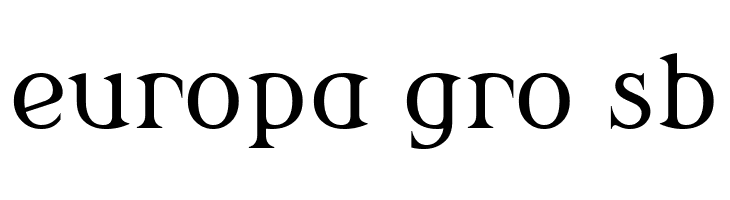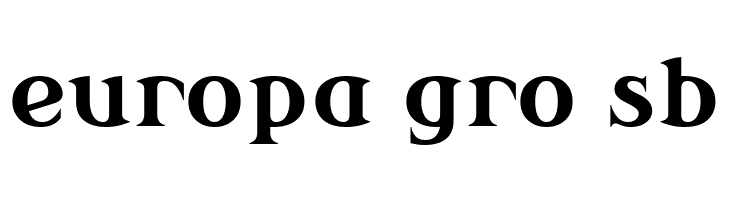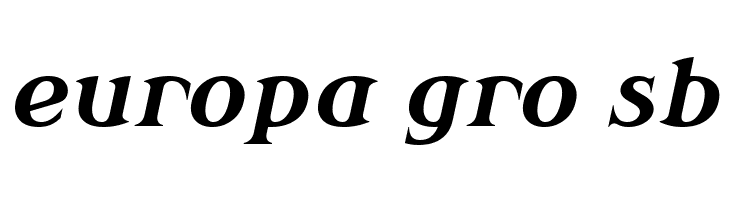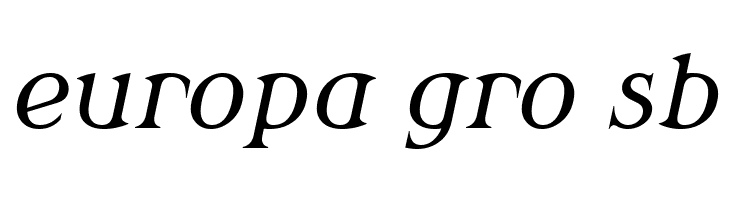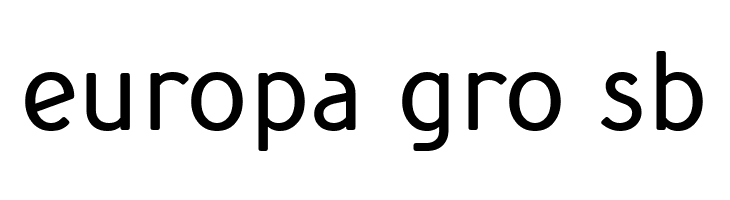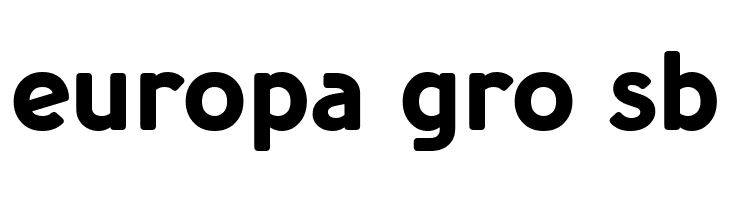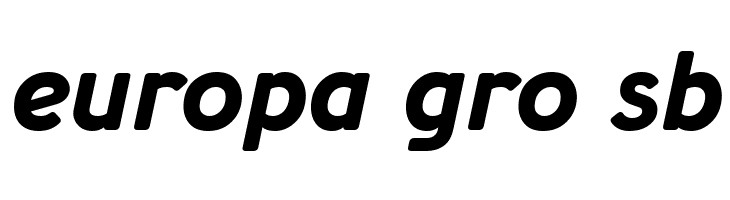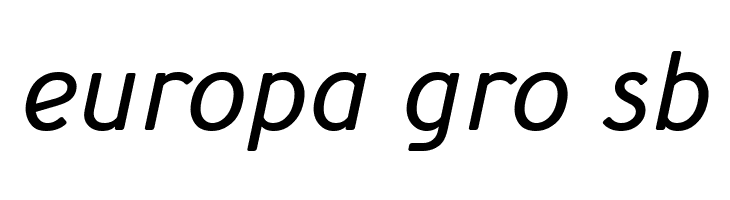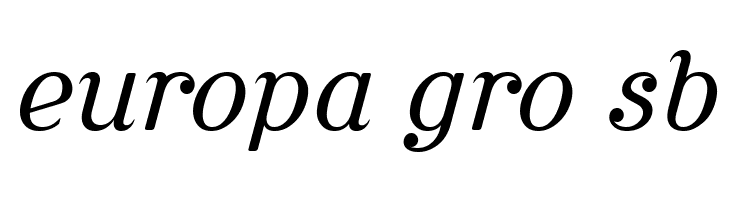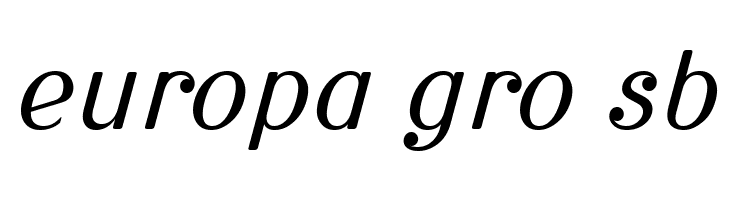
Simply Mono Book Oblique Font
Font by Wojciech Kalinowski
A modern, monospaced font with an oblique slant and consistent stroke weight.
Simply Mono Book Font
Font by Wojciech Kalinowski
A clean, monospaced font with uniform spacing and modern design.
Simply Mono Bold Oblique Font
Font by Wojciech Kalinowski
A bold, oblique monospaced font with a modern and dynamic style.
Consola Mono Book Font
Font by Wojciech Kalinowski
A clean, monospaced font perfect for coding and technical documents.
Simply Mono Bold Font
Font by Wojciech Kalinowski
A bold, monospaced font with rounded, uniform characters.
Simply Sans Bold Font
A bold, modern sans-serif font with rounded edges and uniform stroke weight.
Medieval Sharp Font
A sharp, angular font with a medieval-inspired design.
Cursive Serif Book Font
A sophisticated cursive serif font with elegant, flowing characters.
Cursive Sans Bold Font
A bold, cursive-inspired sans-serif font with a dynamic and elegant style.
Cursive Serif Bold Font
A bold cursive serif font combining elegance with readability.
Modern Antiqua Font
A modern serif font with elegant curves and a classic touch.
Cursive Sans Book Font
A cursive-inspired sans-serif font with elegant, slanted characters.
Simply Sans Book Font
A clean, modern sans-serif font with geometric precision and excellent readability.
Modern Antiqua Bold Font
A bold, modern serif font with classic influences and strong character presence.
Simply Sans Bold Italic Font
A bold, italic sans-serif font with smooth, rounded edges and a modern look.
Modern Antiqua Book Font
A classic serif typeface with a modern touch, featuring elegant serifs and balanced proportions.
Celtica Bold Oblique Font
Font by Wojciech Kalinowski
A bold, oblique font with Celtic-inspired curves and sharp serifs.
Celtica Bold Font
Font by Wojciech Kalinowski
A bold, decorative font with Celtic-inspired design and intricate curves.
Celtica Book Oblique Font